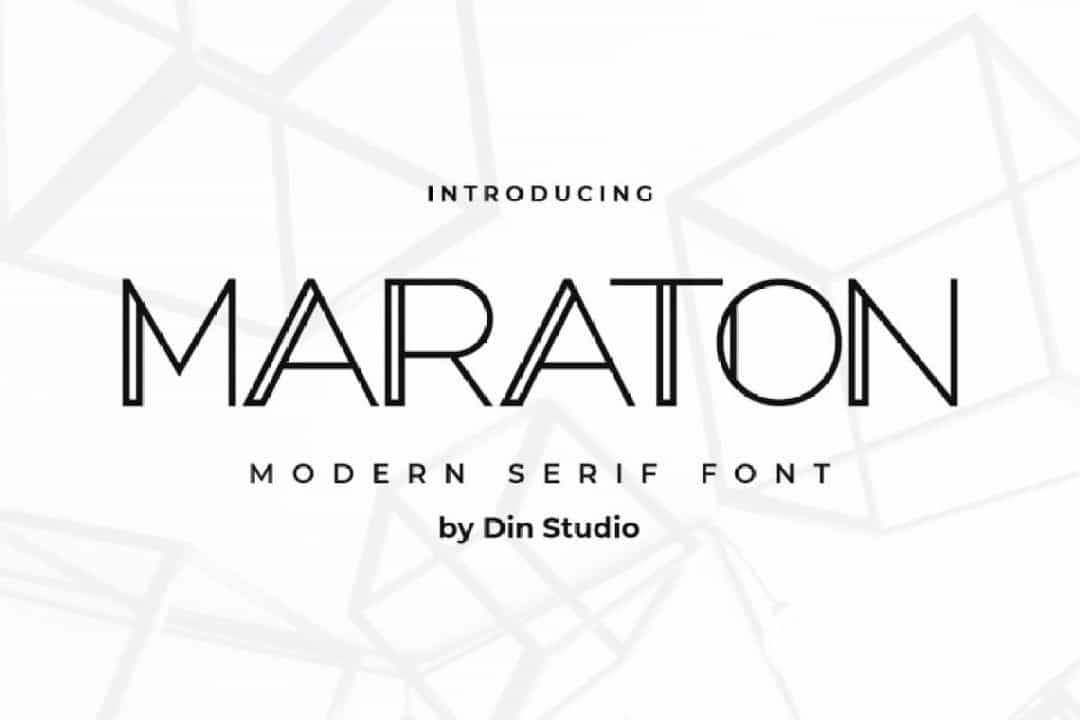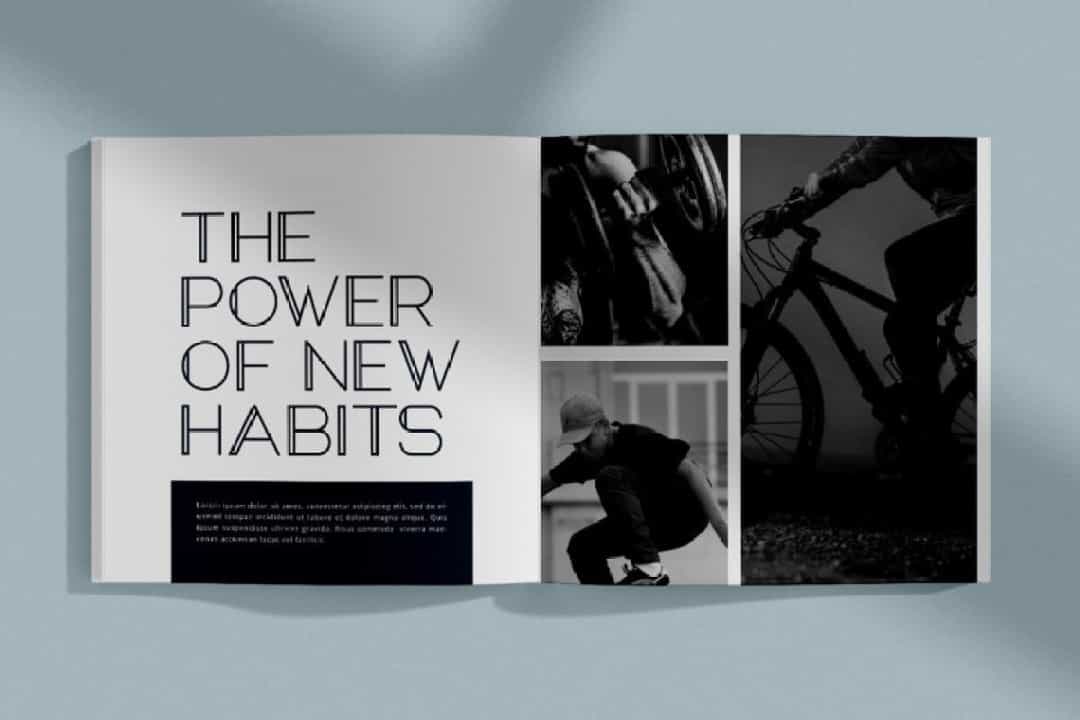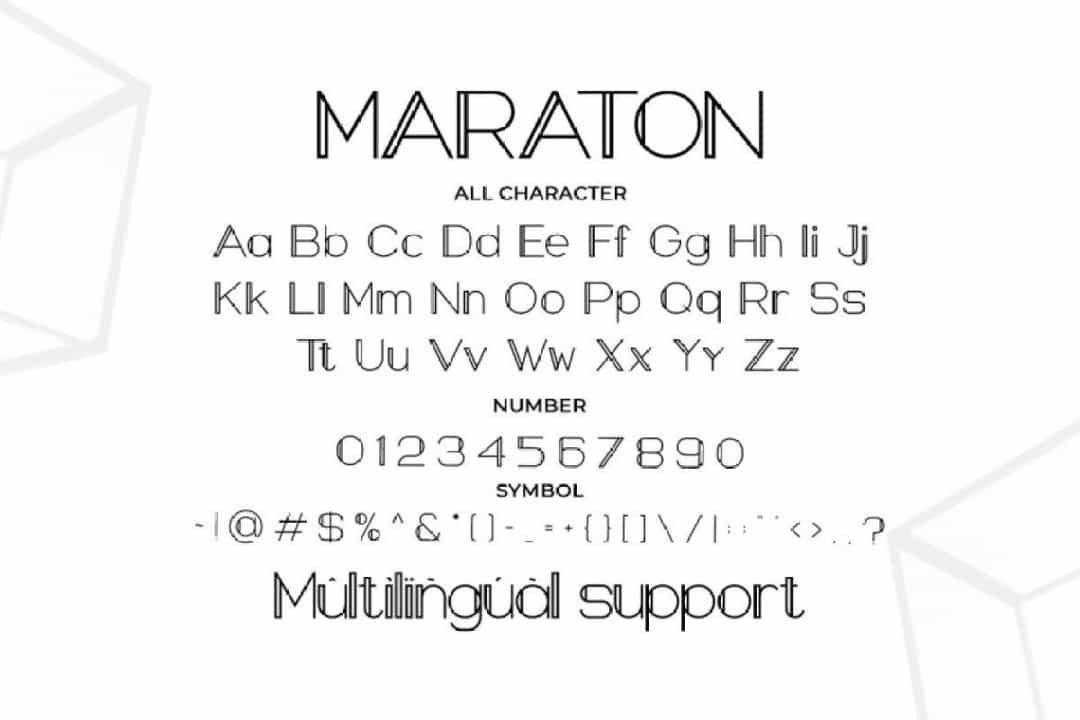
Discover Maraton Modern Sans Display Font, part of the Sans Serif Display collection—a versatile and unique font perfect for adding a personal touch to your projects. Download it for free and enjoy crafting designs with style, from invitations to social media posts. This font is available exclusively for personal use, giving you the freedom to create without limits. Unlock your creativity with Maraton Modern Sans Display Font today!
Maraton is a modern sans font family which is quite suitable for brand and logo design. This font is to be used for heads that require people to notice them but at the same time, it retains a formal and stylish look that can be used in numerous other formats and logos, quotes. branding applications.